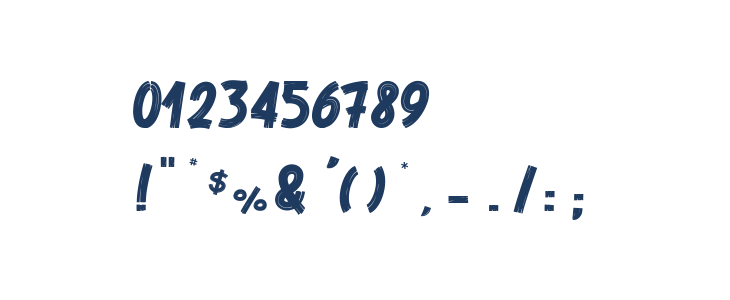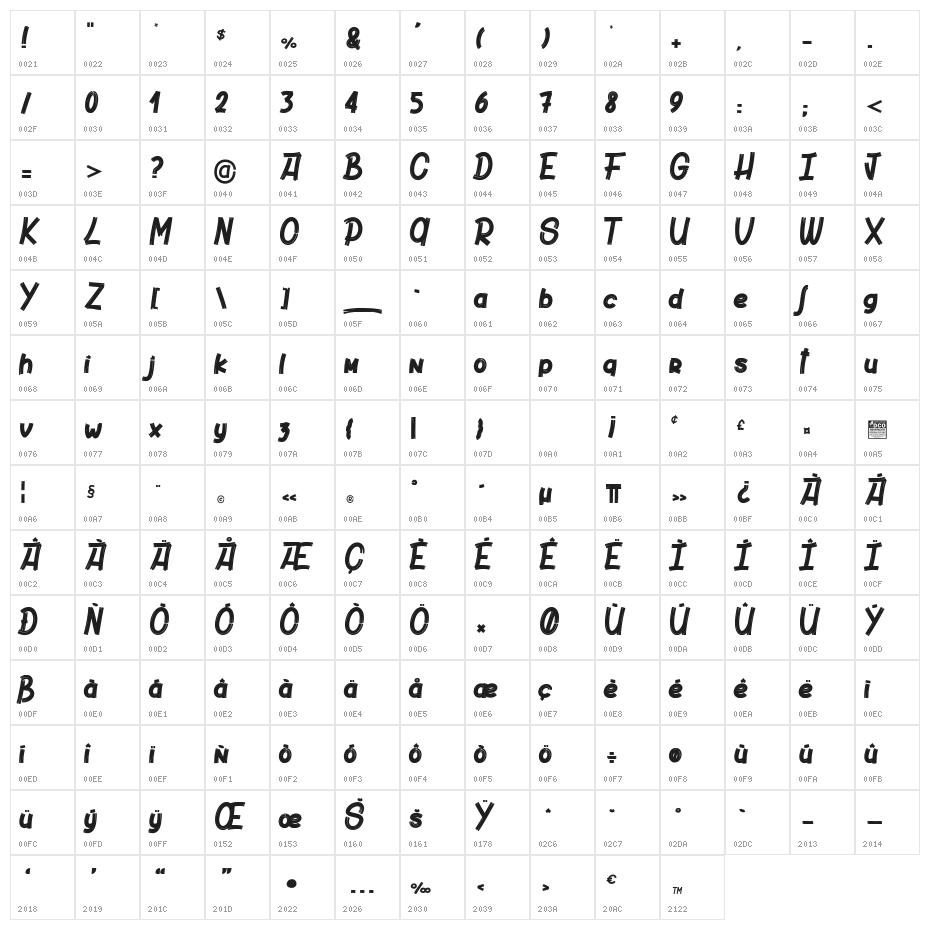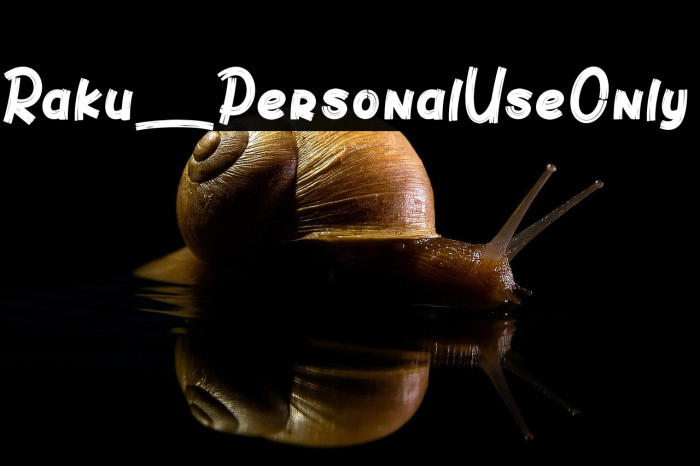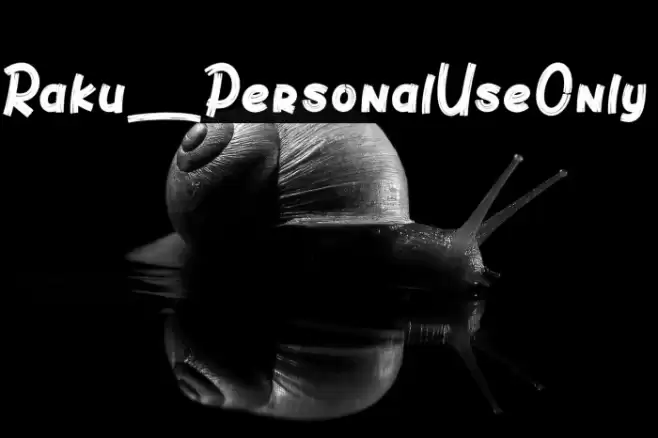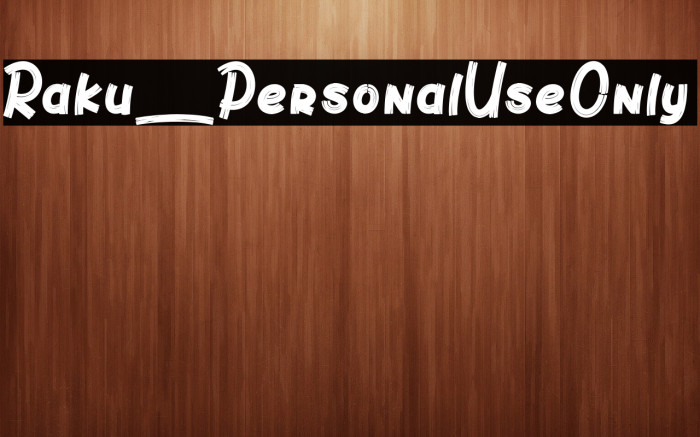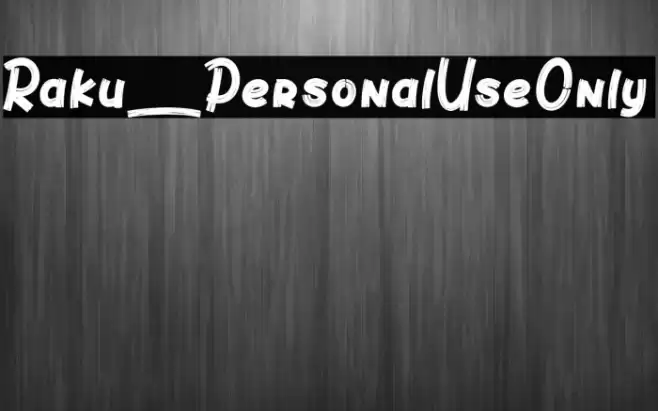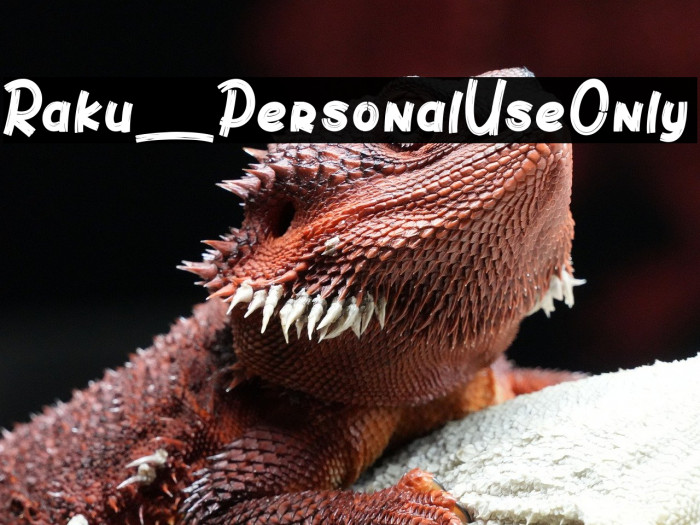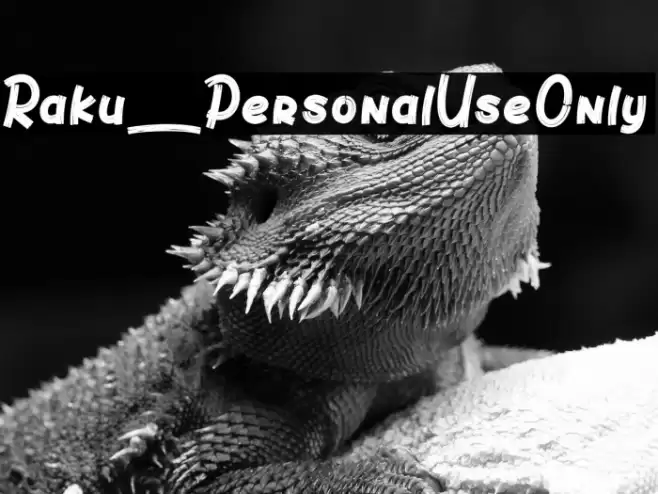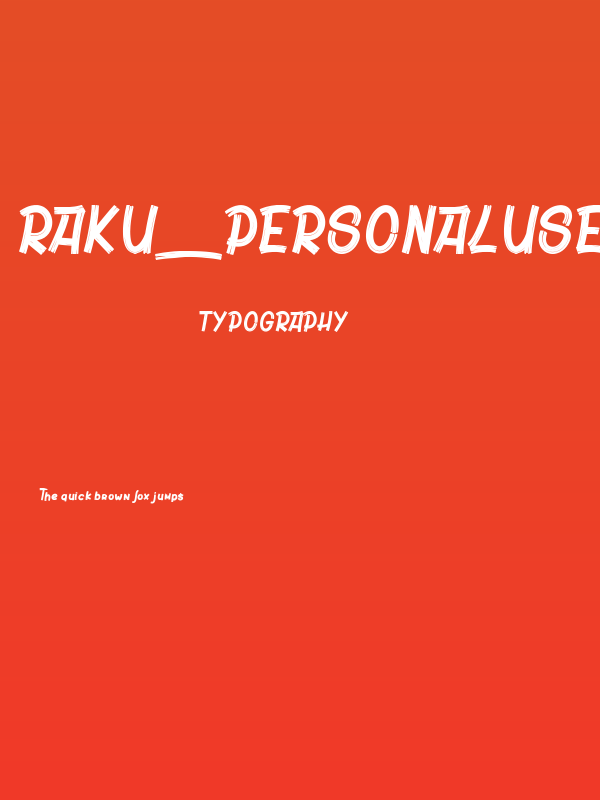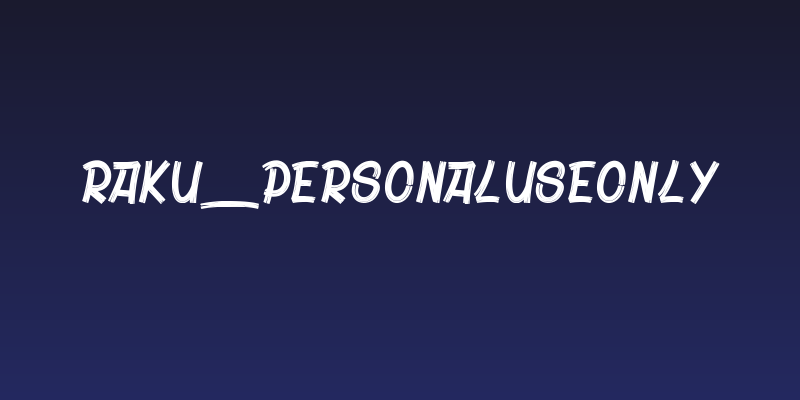
Raku_PersonalUseOnly Font
Raku_PersonalUseOnly Description
This font exhibits a dynamic and energetic style, characterized by its brush-like strokes and irregular edges. The uppercase and lowercase letters maintain a consistent flow, giving the impression of hand-drawn artistry. The numbers and special characters follow the same aesthetic, ensuring uniformity across all elements. The font's playful and bold appearance makes it stand out, with each character having a unique flair that adds to its overall charm. The strokes vary in thickness, providing a sense of movement and spontaneity. This font is ideal for projects that require a lively and informal touch, capturing attention with its distinctive and artistic design.
| Proposed Projects | Ideal for posters, greeting cards, artistic branding, and creative social media graphics. |